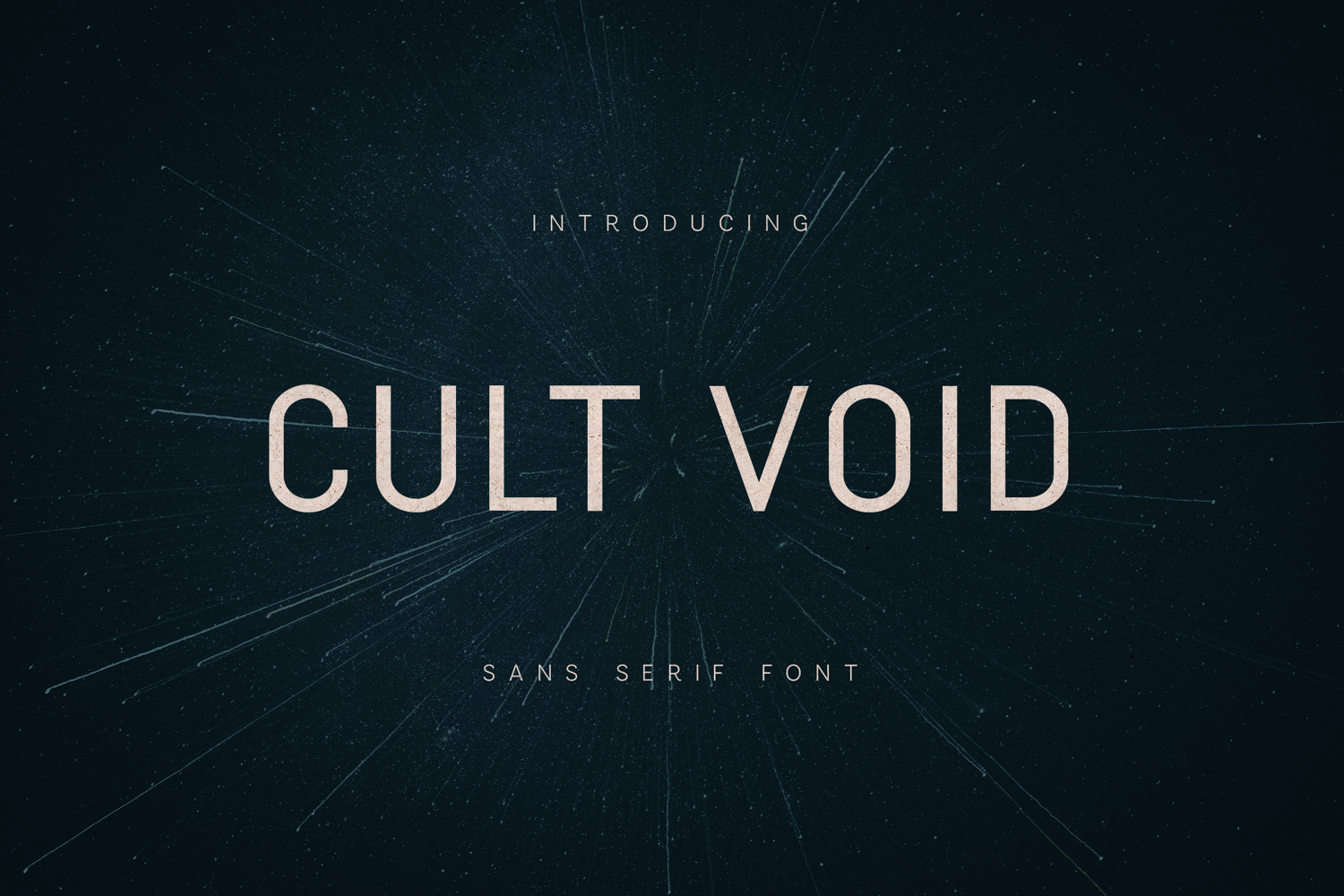
Cult Void Modern Minimal Sans Serif Font
Cult Void is a modern minimal sans serif font designed for bold clarity and contemporary expression. With clean geometry, balanced proportions, and a calm but confident presence, Cult Void is built for designers who want strong typography without unnecessary noise.
The font combines modern structure with subtle softness, making it ideal for headlines, branding, posters, editorial layouts, UI concepts, and visual identities. Its simplicity allows content to breathe while still delivering impact and authority.
Cult Void includes a complete character set with extensive multilingual support, numerals, punctuation, and symbols, making it reliable for both digital and print applications across a wide range of creative projects.
Designed to feel timeless, versatile, and intentional, Cult Void works equally well in minimal layouts and expressive compositions.